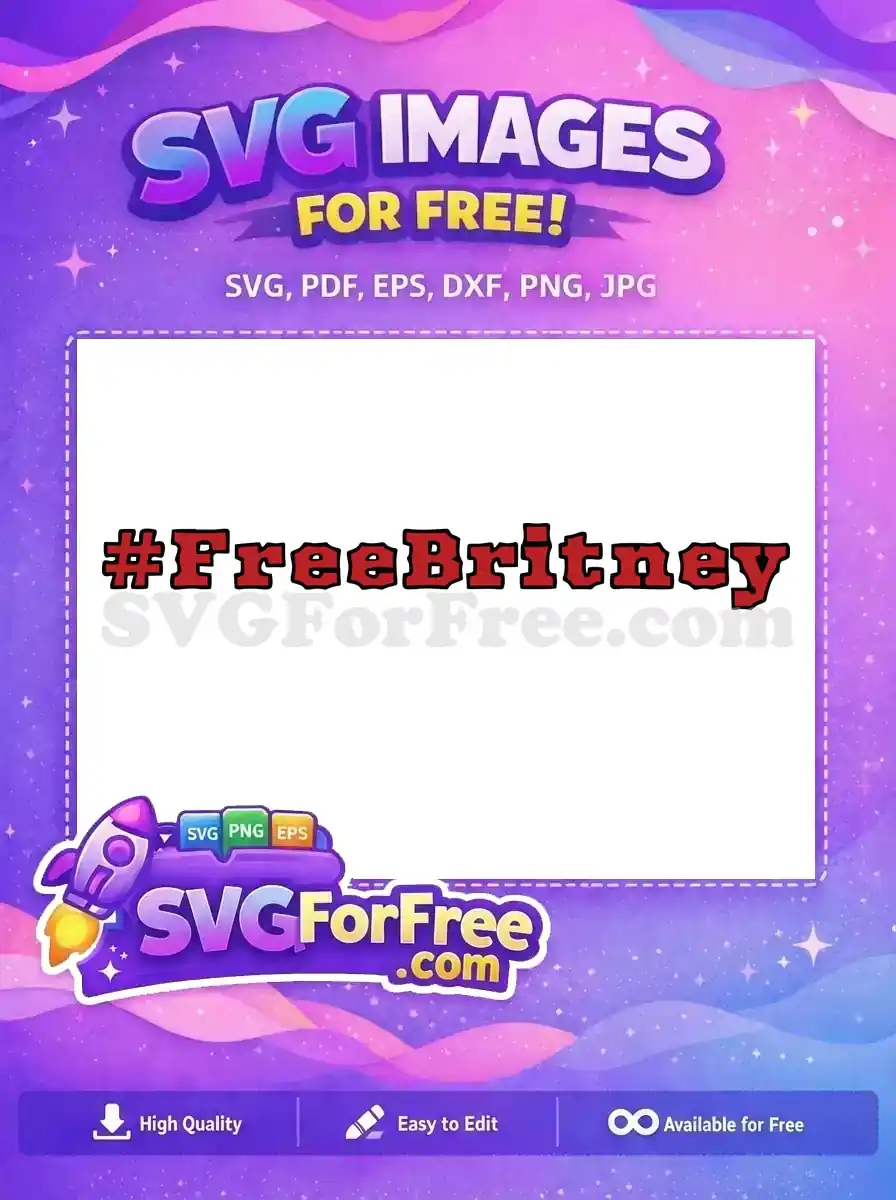
Free Red Grunge Font Free Britney Movement Free SVG – Instant Download
A stylized text graphic free SVG reading ‘#FreeBritney’ in a textured, glitter-effect red font style.
Free Red Grunge Font Free Britney Movement Free SVG